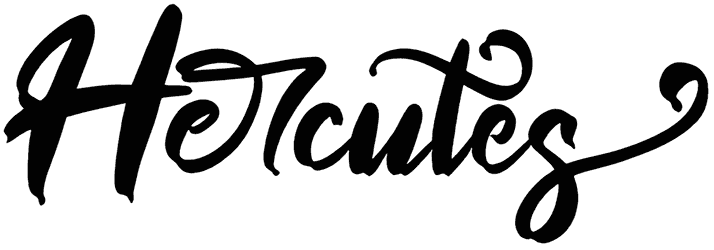
Hercutes Font
Are you thinking about how others develop such exceptional effects with their typography? Easy, they use the right font like when you want a personal and organic effect; you use a cursive font like Hercutes.
This elegance comes from delicate and creative letter design from a complete collection of characters that will provide what you need to make remarkable artwork. So if you are looking for a place that can support all of your needs as a designer, congrats, you have found it.